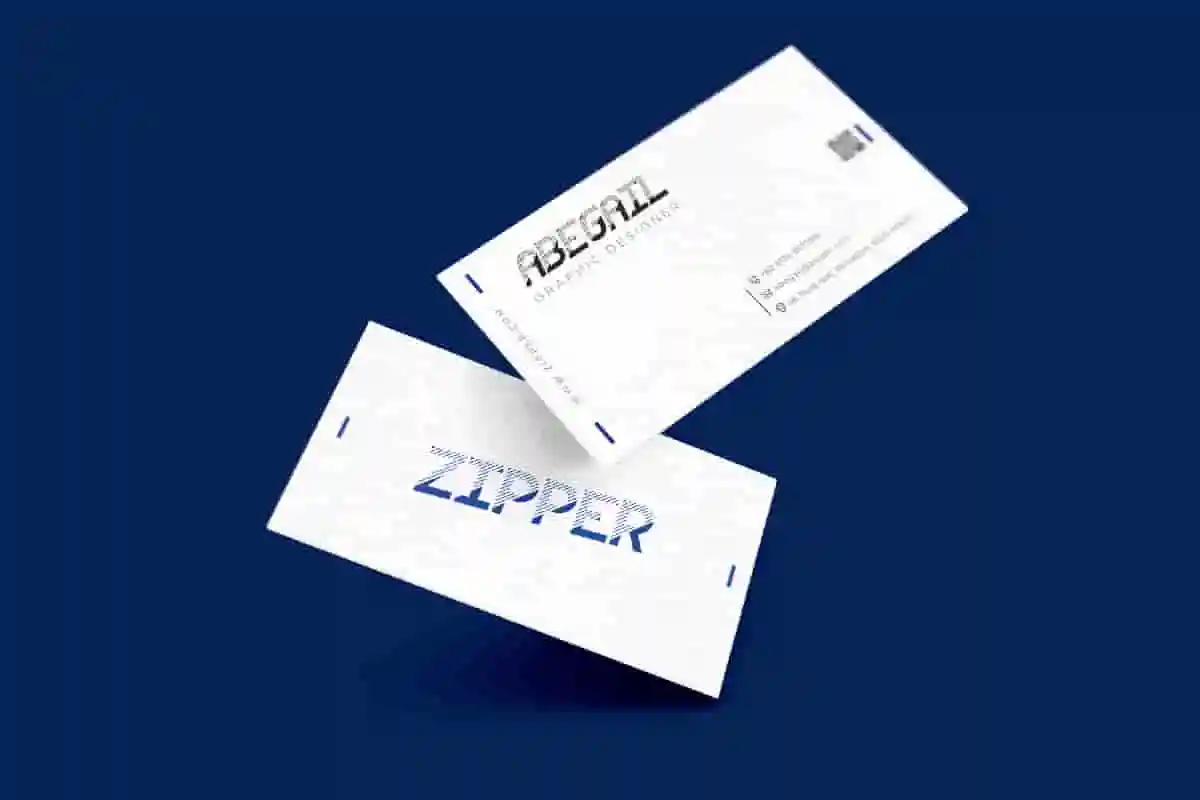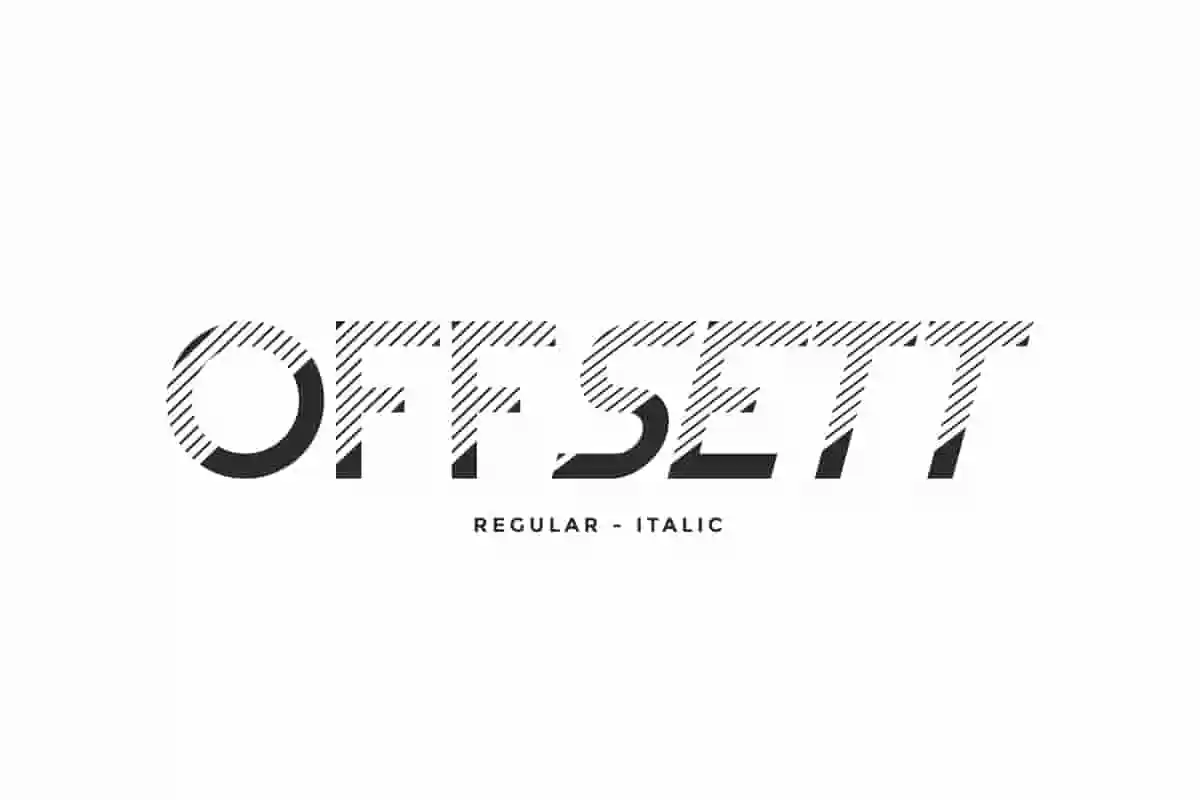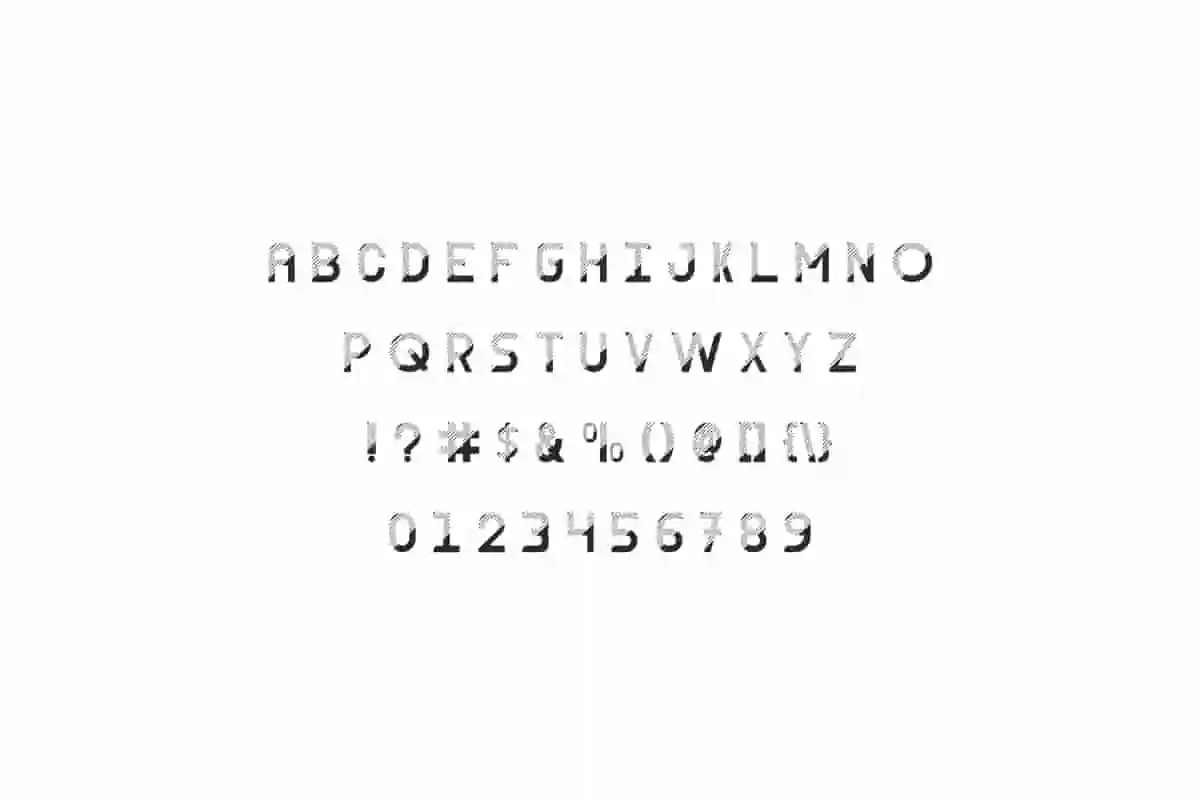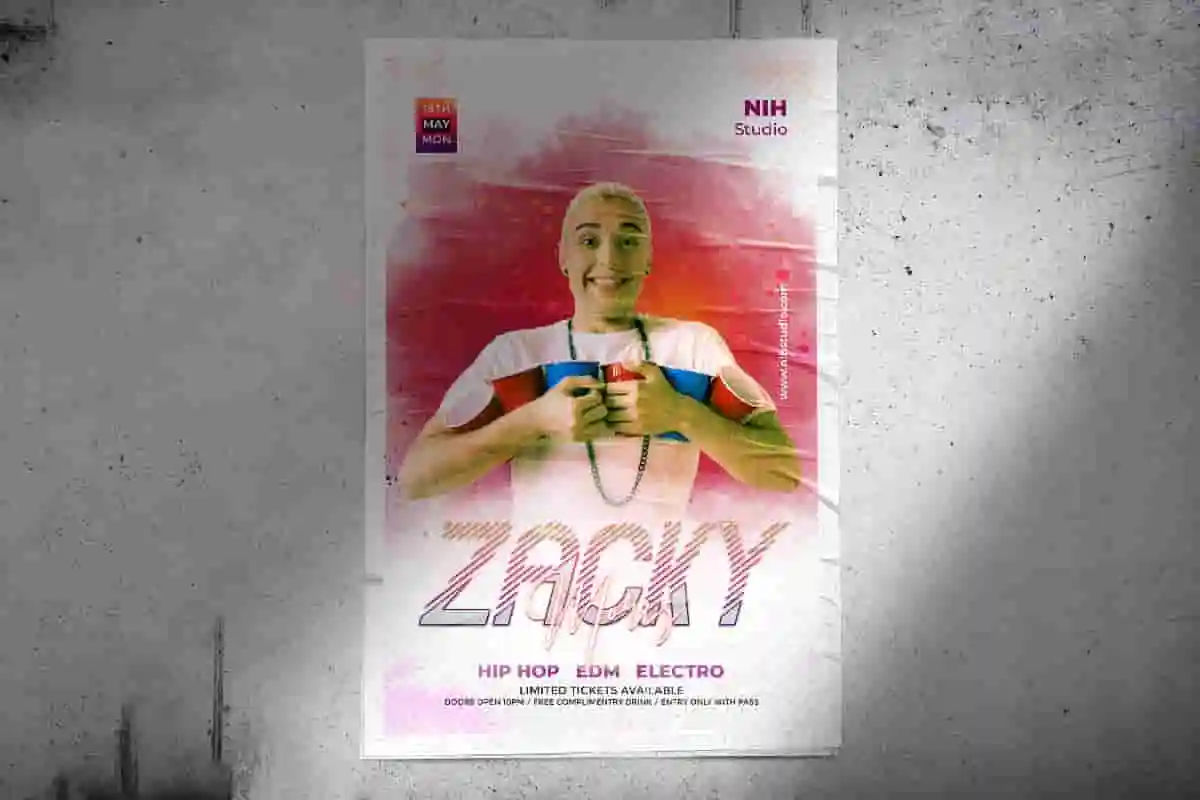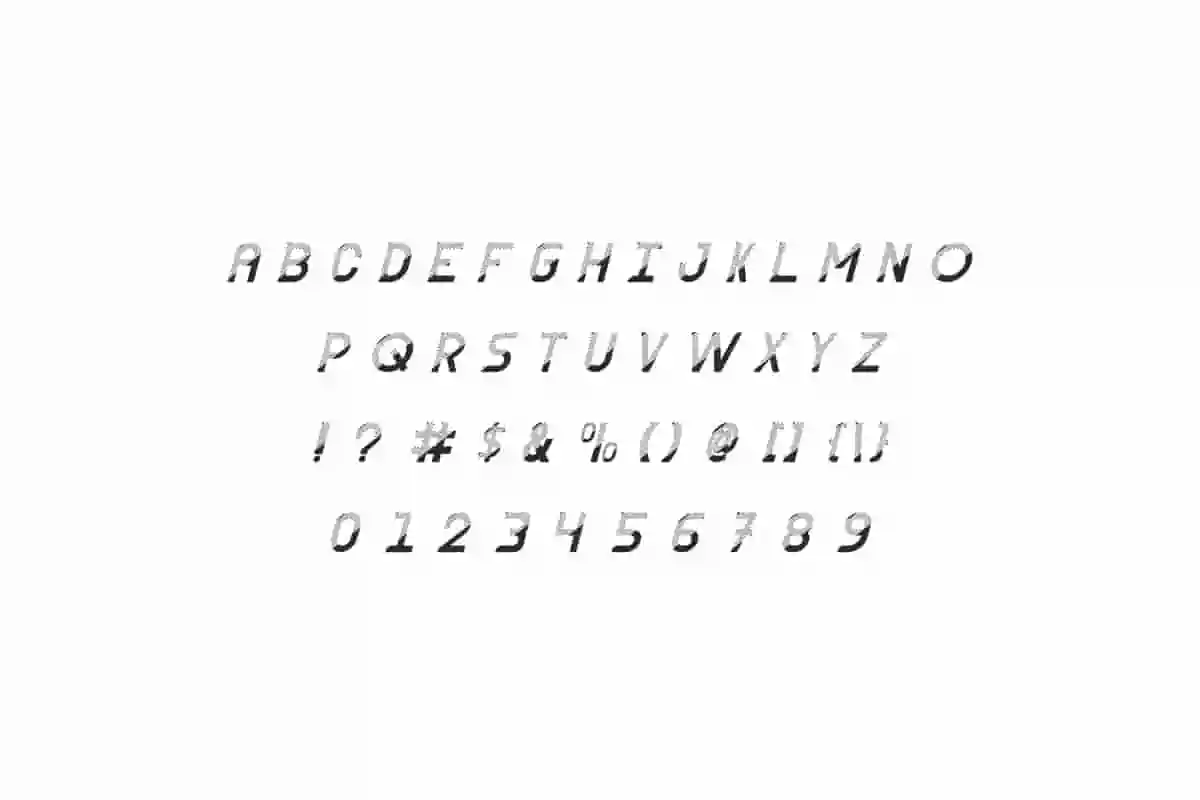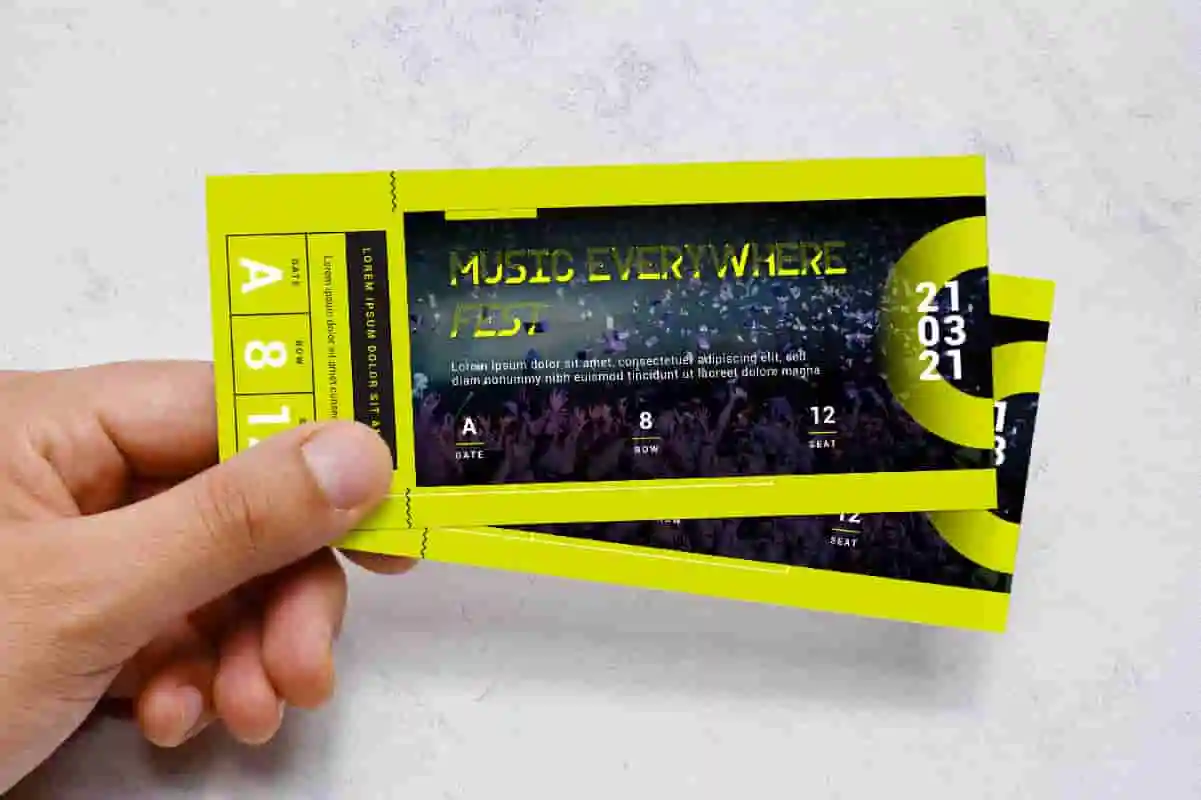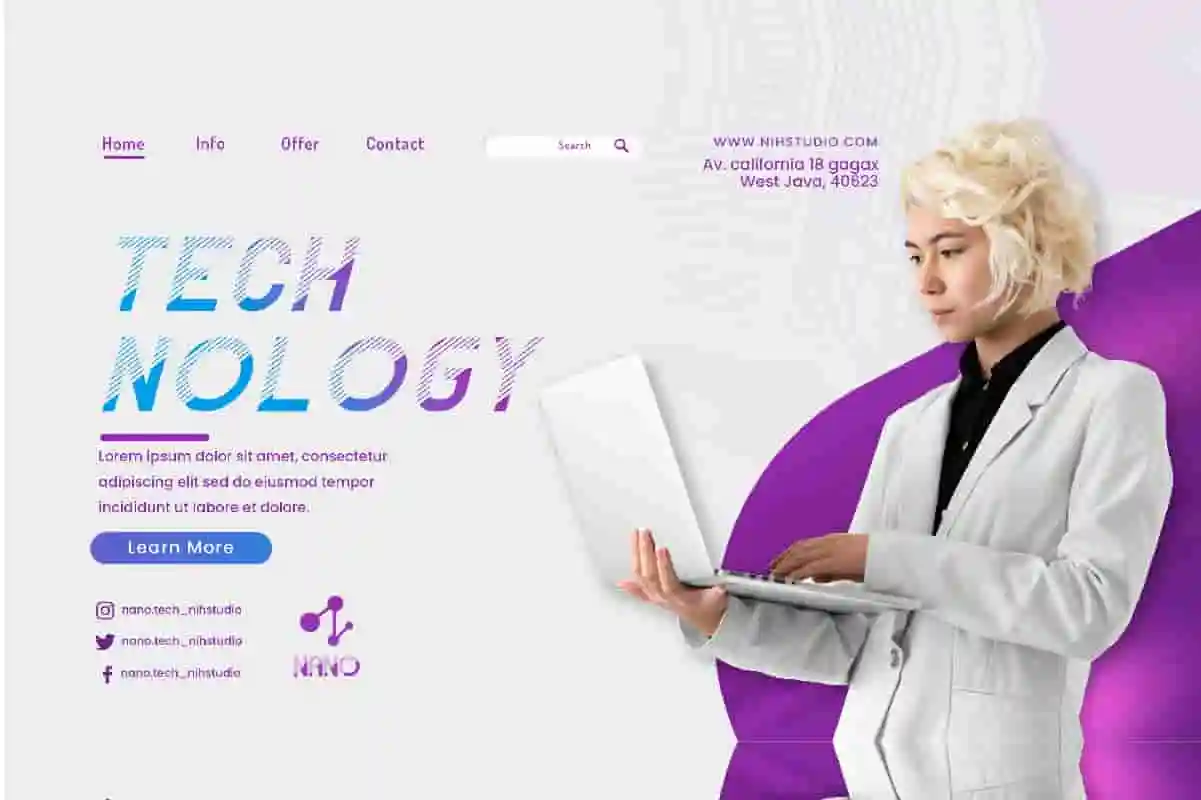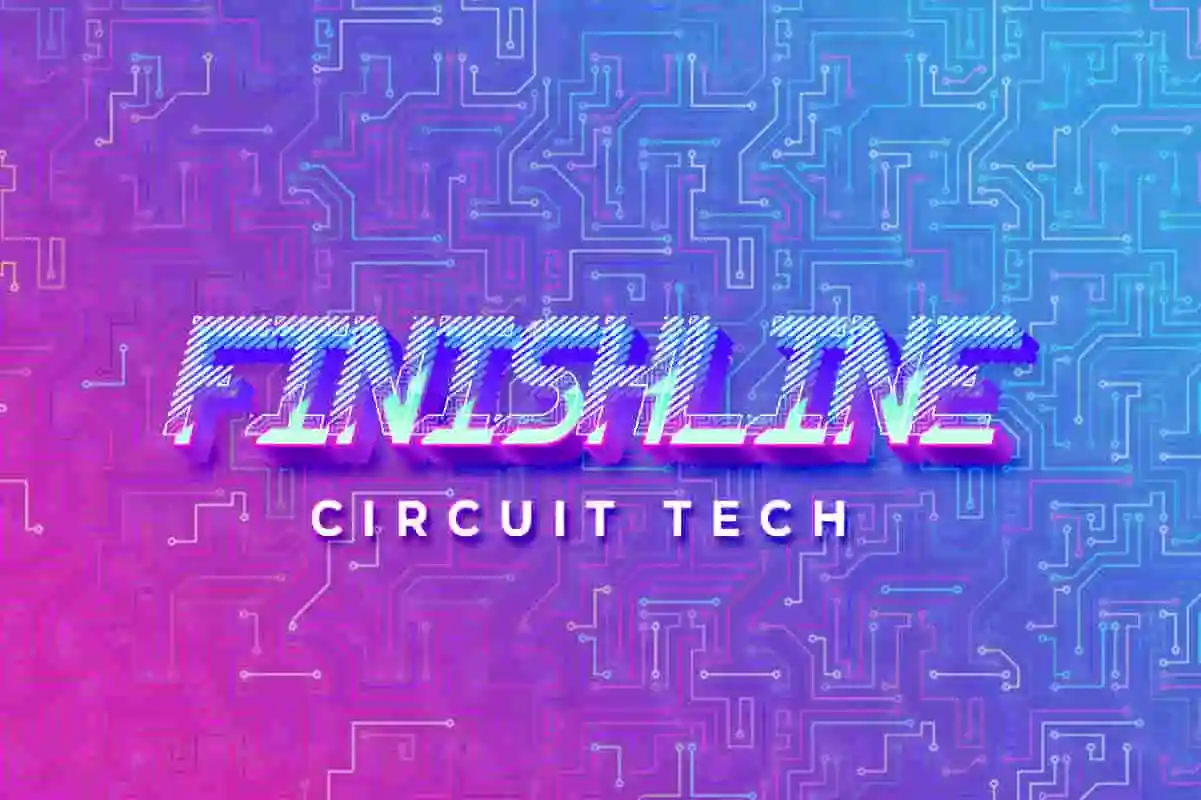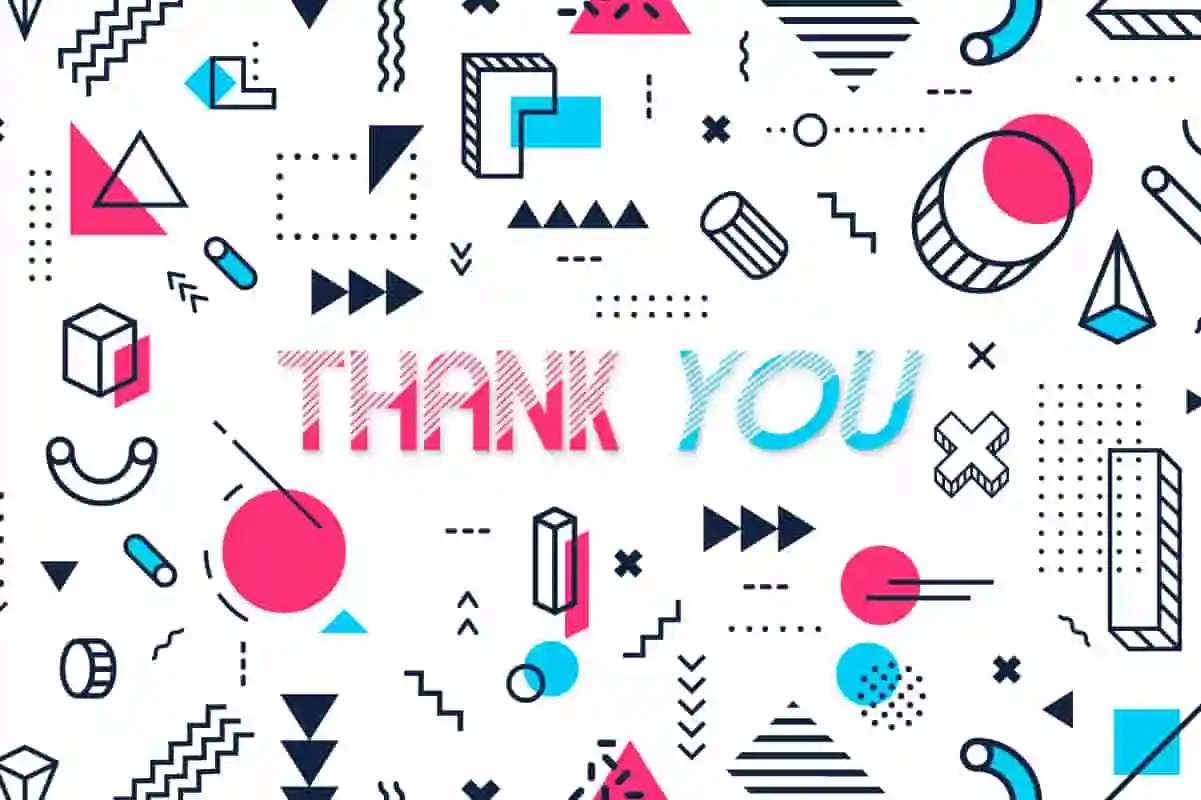
Offsett Font
Offsett Font is a modern futuristic display font by NihStudio, made in 2021. Offsett Font will great for technology industries, magazine, futuristic or modern projects.
Offsett Font is a cutting-edge, futuristic display font family designed by the talented team at NihStudio. This unique typeface stands out with its bold, modern aesthetic, making it perfect for branding, posters, headlines, logos, and digital art projects.
It supports basic Latin characters and is suitable for a wide range of design needs — from futuristic tech themes to modern minimalist layouts.